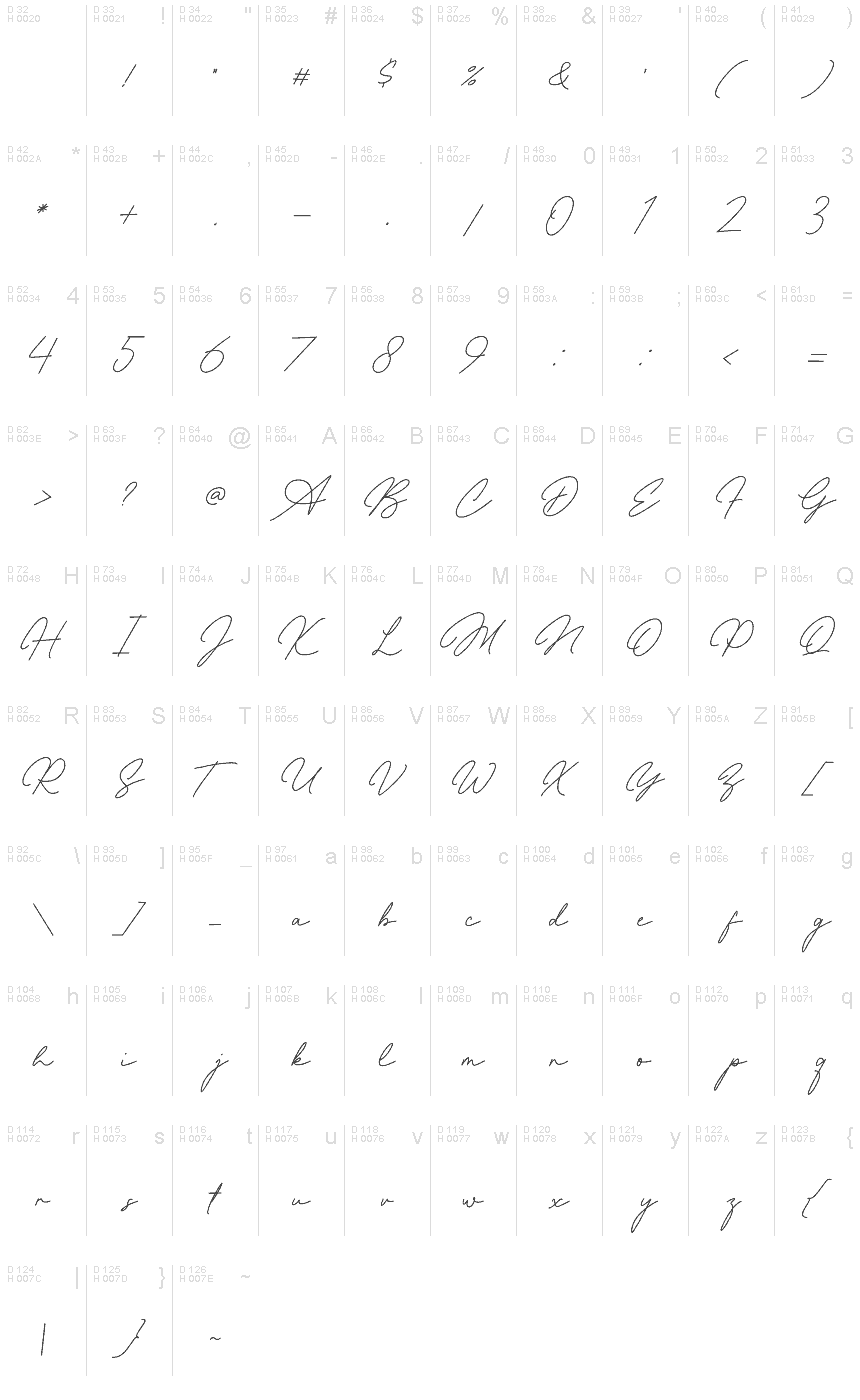
Allena Signature
Allena Signature font by Typeline Studio is a serene handwritten font that instantly elevates your typography projects. Combining a light weight with artistic touch, every stroke looks naturally flowing as you produce letters that appear to be actually handwritten. Letters are elegantly relaxed yet beautifully executed for an incomparable mix of casual and sophisticated.